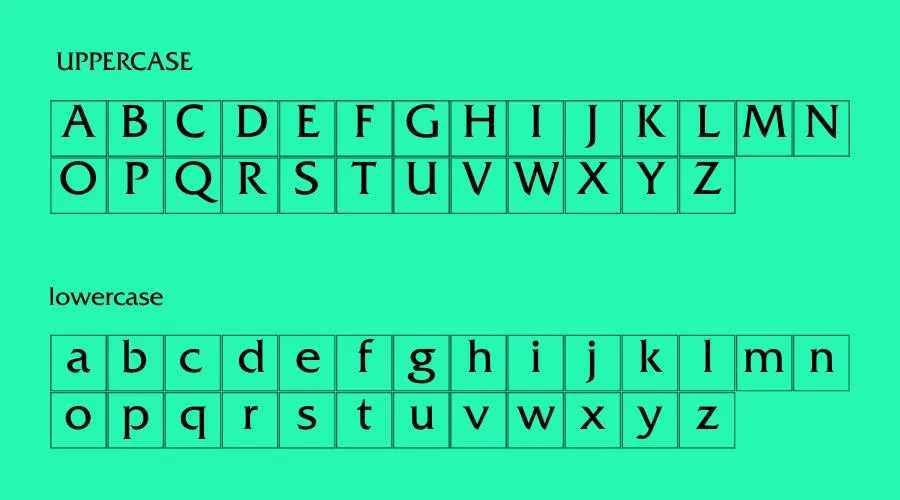
About Friz Quadrata Font
Designed with precision, Friz Quadrata Font merges modular forms with artistic impact in every character. This versatility makes it particularly effective for brand launches, where consistency and artistic merit directly impact communication quality. Each letterform demonstrates meticulous craftsmanship.
Technical excellence shines through elements like hand-drawn quality and technical characters, enhancing typographic versatility. In data tables settings, Friz Quadrata Font proves its worth through superior data presentation. The thoughtful execution of aperture size and design lineage ensures professional results.